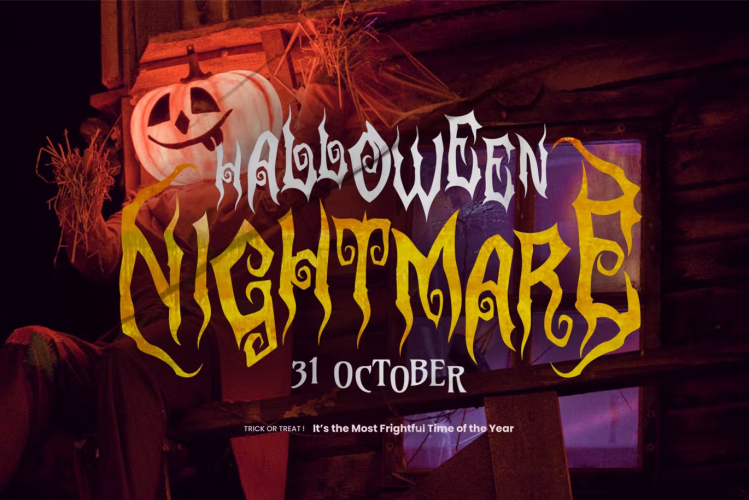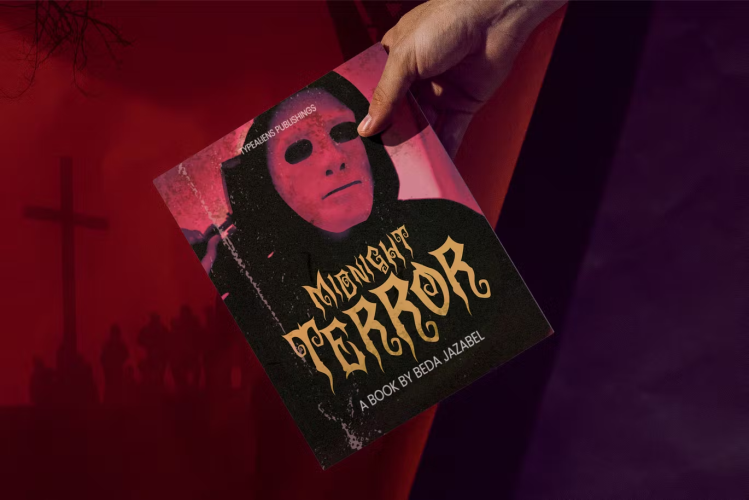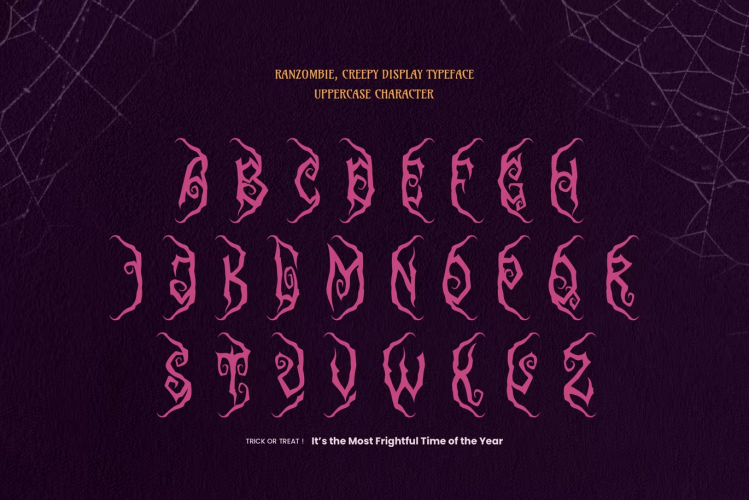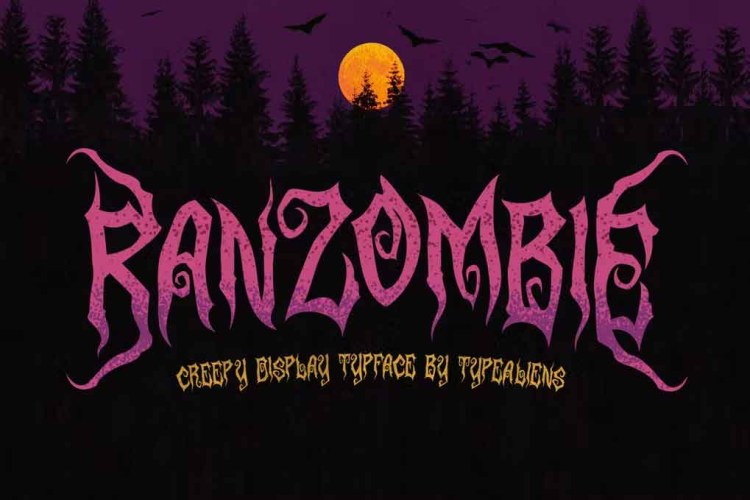
Ranzombie Font
RANZOMBIE is a Halloween-style font, a horror font that can also be used to support a gothic design. A font that consists of all caps, a unique uppercase as a prefix and a suffix in the display font when you want to make it a headline, and lowercase is normal caps. This font is intended for horror films but can also be used for underground bands that are a bit simple.
Where Ranzombie Font works best
Seasonal campaigns
Ranzombie Font gives a holiday or themed promotion its own look without redrawing anything; use it for the headline only.
Party and family invitations
Decorative letters set the mood before the text is read. Pair Ranzombie Font with a plain sans for the practical details.
Game and video titles
Themed lettering sells the world of a game or a channel in one frame.
What kind of work does Ranzombie Font suit?
It sits in the Decorative Fonts group and reads as decorative, decorative fonts, display, professional. That makes it a candidate wherever those qualities help: headings, packaging, social graphics and brand work. Set it at the size you plan to use before deciding.